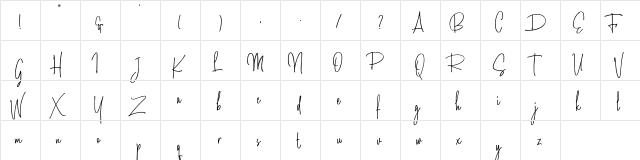
Amanda Santiago Demo Regular
| Foundry | Runsell Studio |
| Designer | Saeful Maarif |
Design Context for Amanda Santiago Demo Typeface
Amanda Santiago Demo is a composed and adaptable typeface that performs quietly and consistently across a wide range of design contexts.